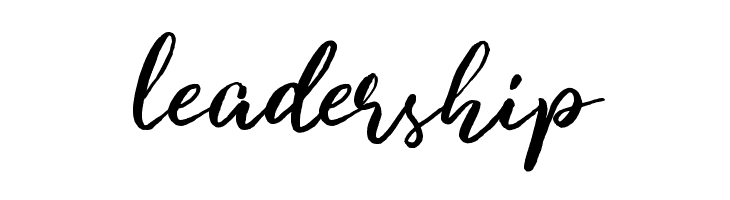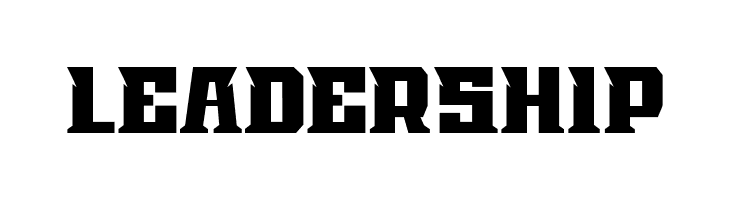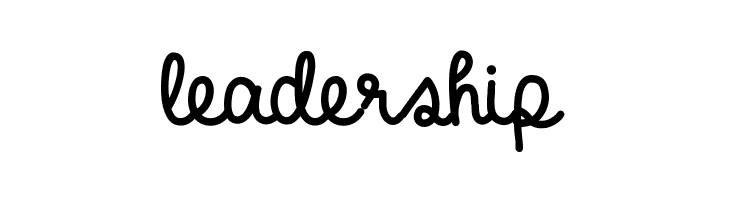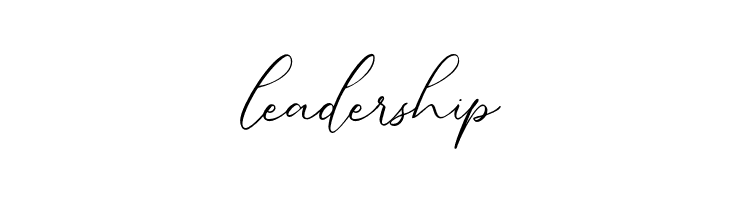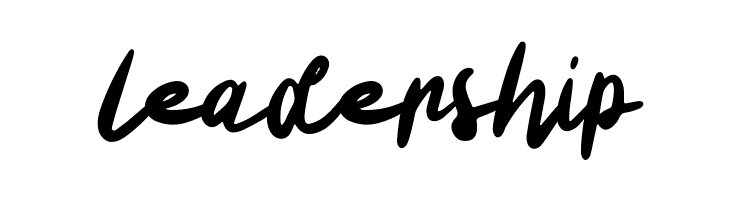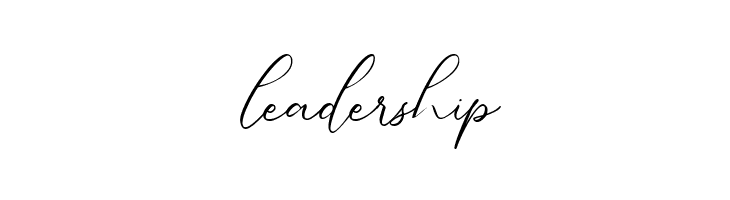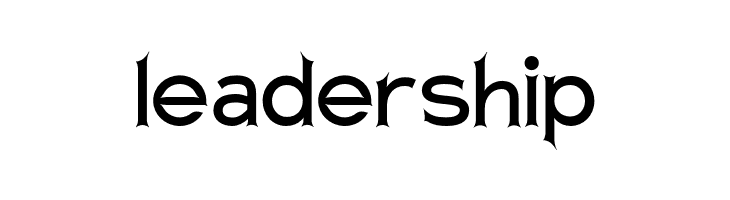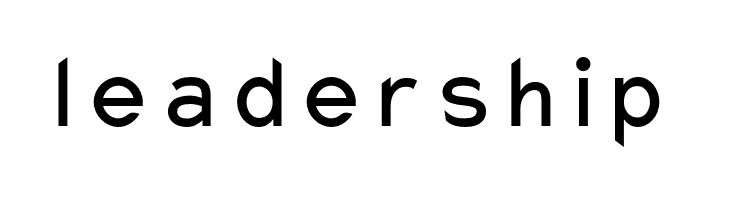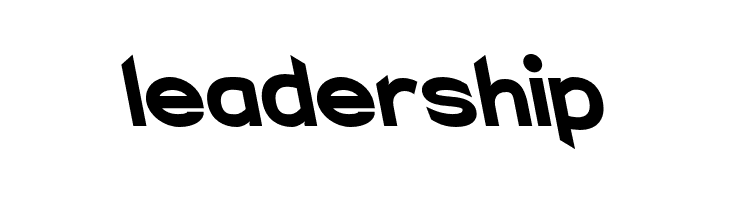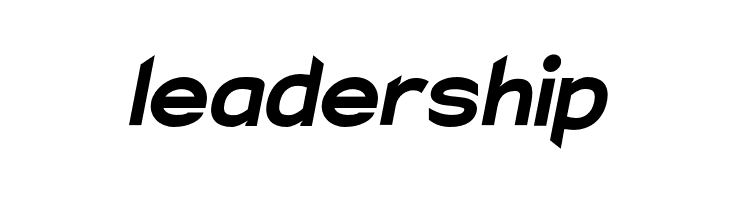
An elegant script font with flowing, cursive letterforms and delicate swashes.
A graceful and flowing script font with elegant, fluid strokes.
A delicate and flowing script font with elegant, fluid letterforms.
A modern, geometric font with clean lines and a futuristic style.
A playful, handwritten font with tall, narrow letters and a light, airy appearance.
A bold, geometric font with a three-dimensional, retro-inspired design.
A playful handwritten font with heart motifs and decorative elements.
A bold, expressive brush script font with dynamic, fluid strokes.
A flowing, elegant script font with a handwritten style.
An elegant, flowing script font with a handwritten style.
A dynamic and flowing script font with elegant, cursive letterforms.
A graceful script font with fluid, connected strokes and elegant style.
An elegant script font with flowing, cursive letterforms and sophisticated style.
A playful and casual handwritten font with fluid, dynamic strokes.
A lively handwritten font with dynamic strokes and a personal touch.
A lively and dynamic handwritten script with fluid, cursive strokes.
A classic serif font with elegant, traditional features and moderate contrast.
A bold, classic serif font with strong, elegant strokes.
A bold, cursive script font with flowing, expressive strokes.
A bold, italicized font with a playful and dynamic style.
A bold, playful font with rounded edges and a hand-drawn feel.
A bold, distressed blackletter font with a gothic and textured style.
A bold, distressed font with chaotic, paint-splattered textures.
A bold, italicized font with rounded, dynamic strokes and a playful style.
A playful, bold font with rounded edges and a hand-drawn feel.
An elegant italic typeface with smooth curves and refined style.
A classic serif font with elegant serifs and balanced proportions.
A vintage, handcrafted font with a rustic and artistic style.
A bold, rounded font with smooth curves and a modern, playful style.
A playful, outlined font with a bold, rounded style and consistent stroke width.
A bold, playful handwritten font with energetic curves and loops.
A bold, geometric font with sharp angles and a modern aesthetic.
A bold, geometric font with sharp, angular edges and a modern style.